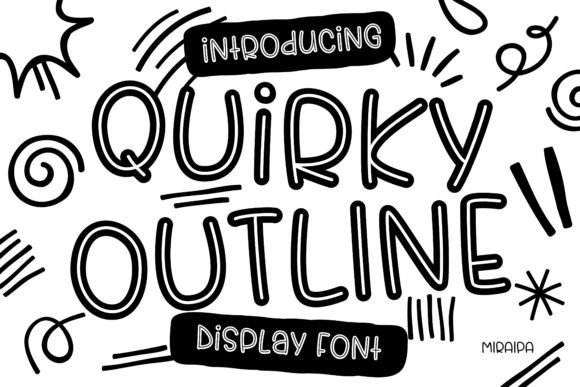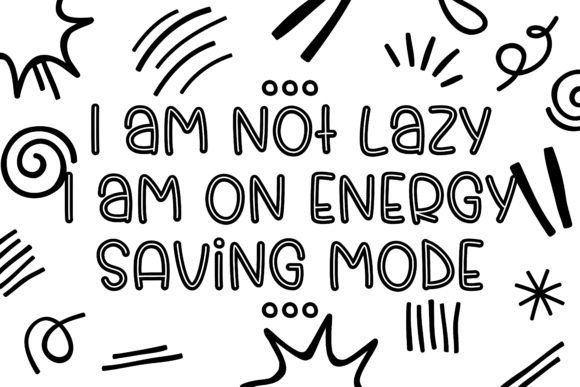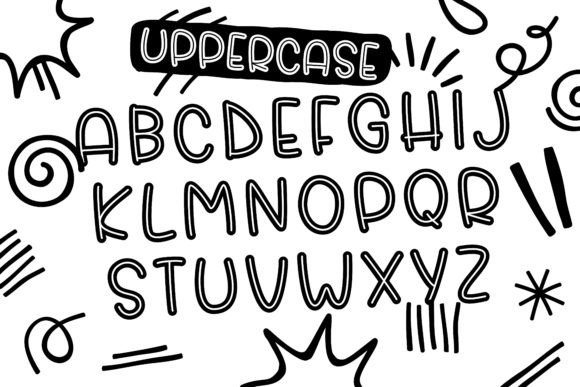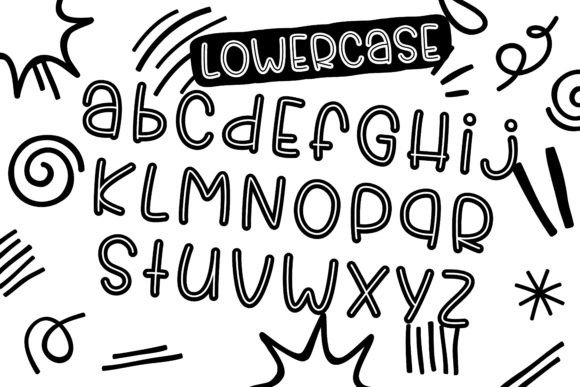
Quirky Outline Font Font
About the Quirky Outline Font Font
Discover the charm of Quirky Outline Font Font. This font is a perfect blend of modern aesthetics and classic appeal. Quirky Outline is a funky and cool display font. Whatever the topic, this font will be a wonderful asset to your font library, as it has the potential to enhance any creation.
Its bold outlines and playful character make Quirky Outline ideal for headlines, short slogans, logos, and posters where a strong visual impact is desired. It works exceptionally well in branding for youthful, energetic brands—think clothing lines, music festivals, or social media campaigns. Avoid using it for body text or lengthy paragraphs; its distinctive style can become overwhelming and difficult to read in extended use.
Pairing Quirky Outline with a clean sans-serif like Open Sans for body copy creates a pleasing contrast, balancing the font’s playful energy with readability. For a more sophisticated feel, consider pairing it with a classic serif like Garamond or a geometric sans-serif like Futura. These pairings allow the Quirky Outline to shine as a statement element while maintaining visual harmony.
The font exudes a fun, slightly rebellious energy. Its strong visual presence conveys confidence and a modern, informal aesthetic.
Quirky Outline Font Font Usage Examples
Quirky Outline Font Font Example